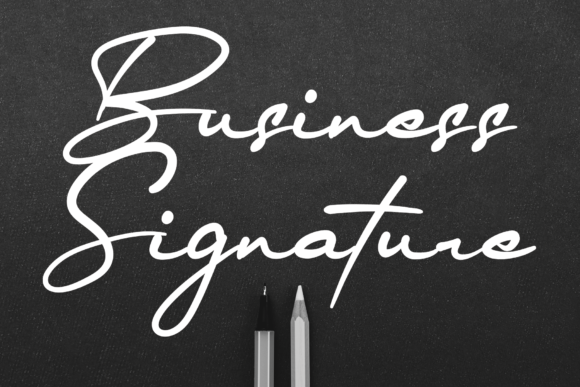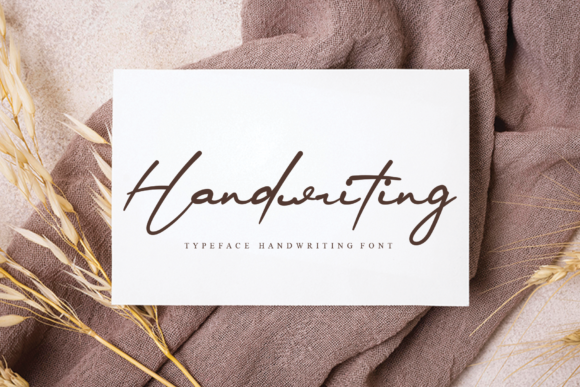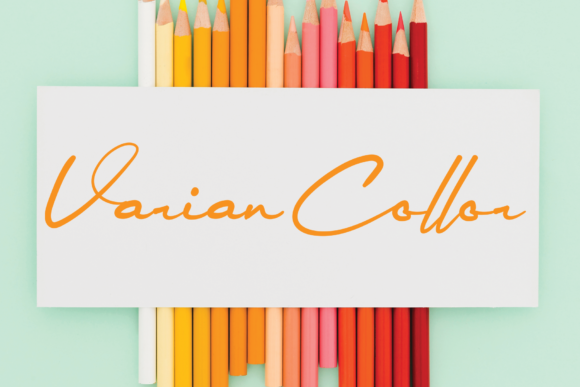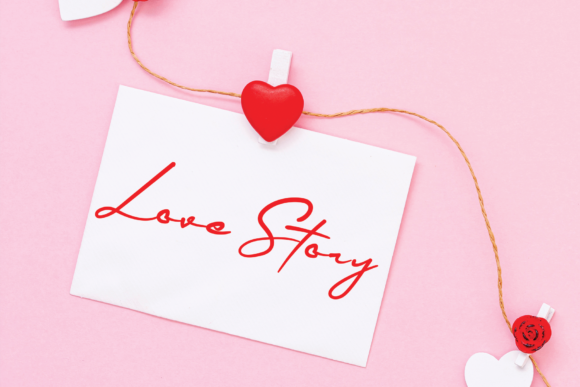
Introduction to Mellinda Handmade Font
Have you ever found yourself in the midst of a creative project, pouring your heart and soul into every detail, only to be held back by the perfect font? We’ve all been there. The moment you discover the perfect font is like finding the missing piece to a puzzle. It’s that magical spark that elevates your work from ordinary to extraordinary.
That’s where the Mellinda Handmade Font comes in – a true game-changer for designers. This exquisite handwritten font is masterfully designed to bring a touch of elegance and sophistication to your projects. With its classy calligraphic influences and contemporary feel, it’s the perfect addition to any design resource. Whether you’re working on a high-quality brochure, a free download, or a creative project, the Mellinda Handmade Font is sure to take your work to new heights.
Key Features of Mellinda Handmade Font
- Unique Hand-Drawn Design: Mellinda Handmade Font boasts a distinctive, hand-drawn aesthetic that adds a touch of personality to any creative project.
- Multi-Lingual Support: Mellinda Handmade Font supports a wide range of languages, including English, Spanish, French, and many more, making it a versatile design resource.
Honest Review: Mellinda Handmade Font
As a designer, I’m always on the lookout for unique and high-quality design resources to elevate my creative projects. Recently, I stumbled upon the Mellinda Handmade Font, and I’m excited to share my thoughts on this charming font.
What works well: ✨ The Mellinda Handmade Font has a beautiful, vintage aesthetic that’s perfect for projects requiring a touch of elegance. The font is highly customizable, and the designer has provided a range of OpenType features, including ligatures and swashes. The transparent background option is a nice touch, allowing me to easily layer the font over different backgrounds.
- Customizable OpenType features
Overall, I’m impressed with the Mellinda Handmade Font, and I’m happy to add it to my design resource library. If you’re looking for a high-quality, unique font for your creative projects, I’d definitely recommend checking it out.
Tips for Getting the Most Out of Mellinda Handmade Font
To get the most out of Mellinda Handmade Font, experiment with different font sizes, colors, and styles. You can also use the font in combination with other design elements, such as images and graphics, to create a unique visual effect. Additionally, you can use the font to create custom logos, icons, and other design elements.
Common Use Cases for Mellinda Handmade Font